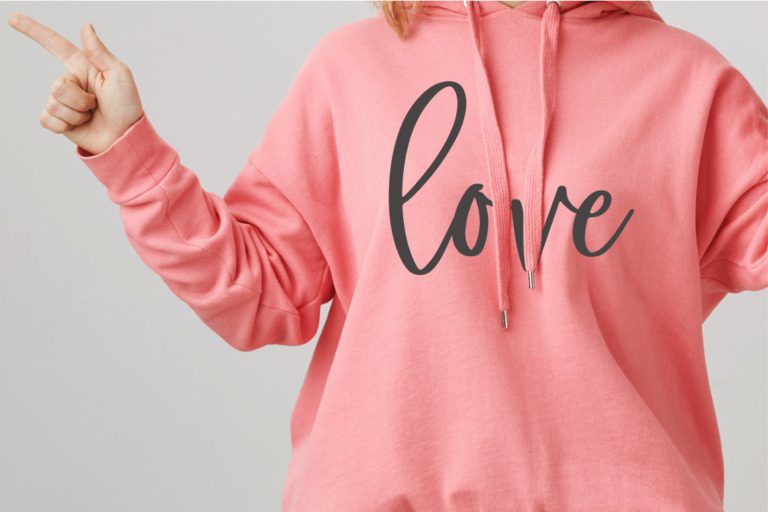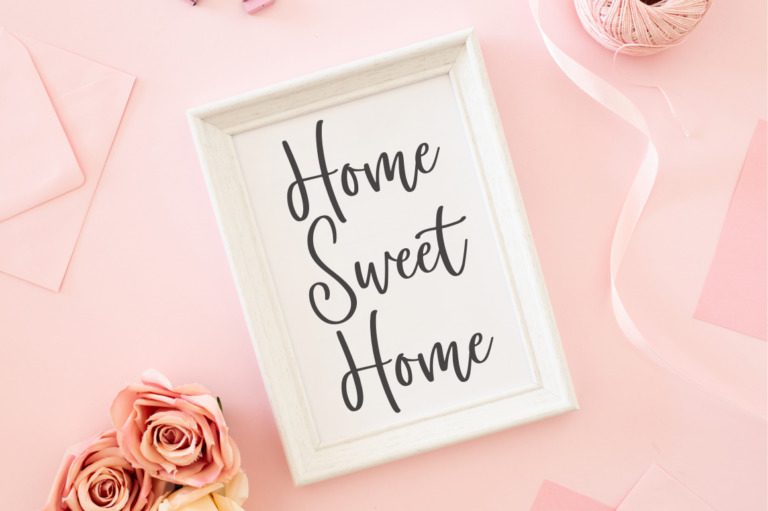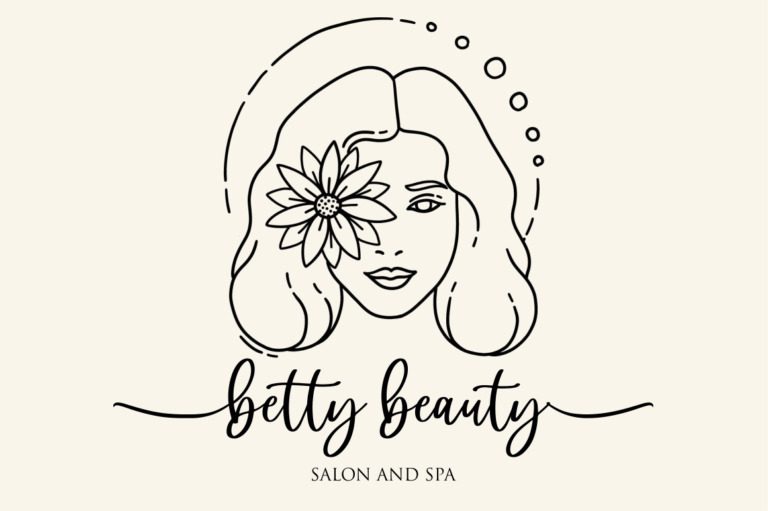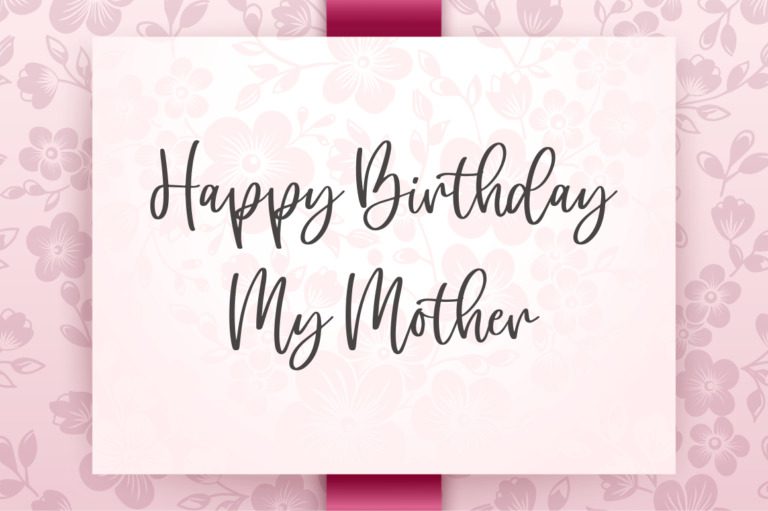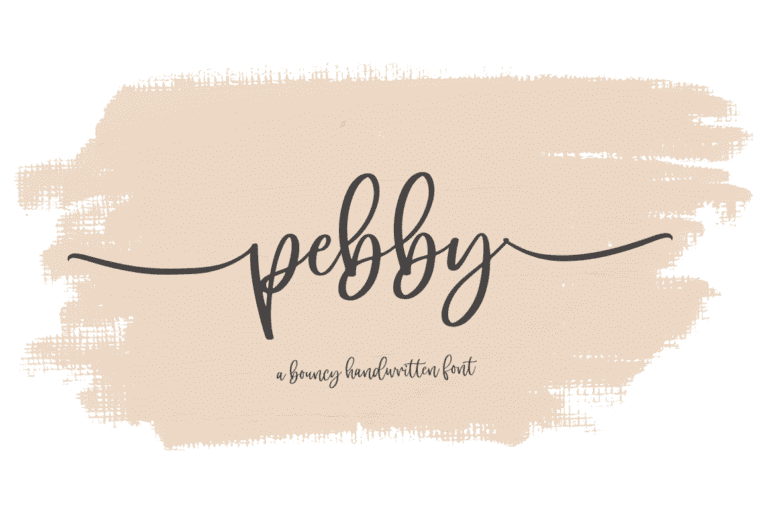
Pebby Font
Pebby is a charming and playful handwritten font that adds a touch of sweetness and fun to any design. Its flowing curves and delicate details create a sense of whimsy and romance, making it perfect for invitations, greeting cards, and other creative projects. With its friendly and inviting aesthetic, Pebby is sure to brighten up any design.